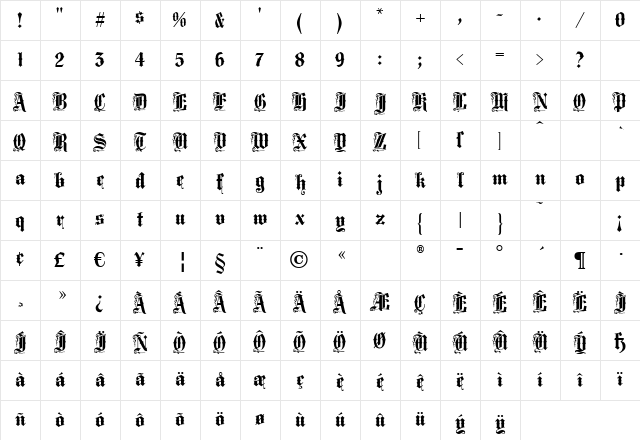
Middle Saxony Text Regular
Complete Middle Saxony Text Regular glyph index. Displaying only characters natively supported by Middle Saxony Text Regular font.
Design Context for Middle Saxony Text
Middle Saxony Text is a composed and adaptable typeface that performs quietly and consistently across a wide range of design contexts.